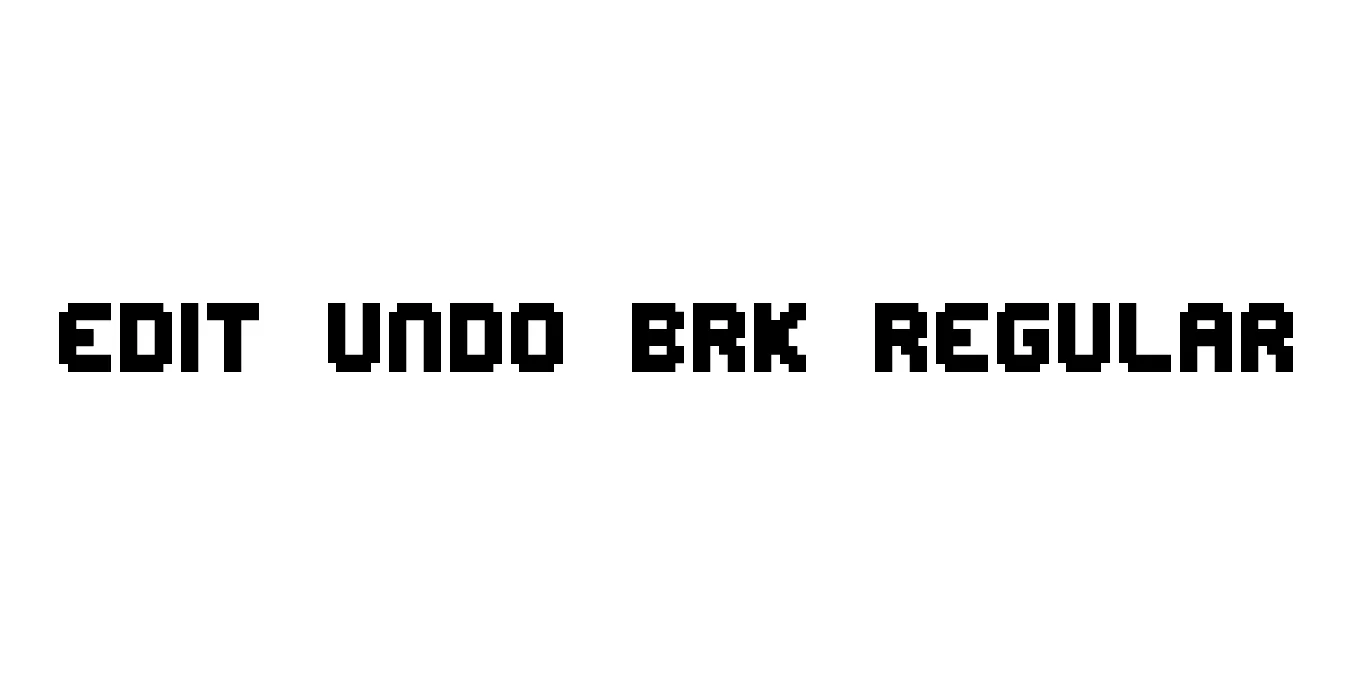
Edit Undo BRK Regular
Designed by Brian Kent (Ænigma Fonts)
| Category | Pixel / Bitmap |
| Designer | Brian Kent (Ænigma Fonts) |
Edit Undo BRK Regular is a classic pixel-style typeface designed by Brian Kent, a prolific creator behind the Ænigma Fonts collection. This font captures the essence of early digital displays and retro computing, utilizing a grid-based structure that ensures clarity at small sizes while maintaining a distinct 8-bit aesthetic. Its minimalist design and blocky letterforms make it a staple for projects seeking a nostalgic yet technical feel.
First released in the late 1990s as part of the massive BRK library, Edit Undo has remained popular among indie game developers and graphic designers. Its versatility allows it to function well in glitch-themed art, futuristic user interfaces, and lo-fi digital branding. The typeface remains a quintessential example of the bitmap font movement, representing a period where digital constraints inspired creative typographic solutions.
Edit Undo BRK Regular Best Uses
Perfect for UI and dialogue text in 8-bit or 16-bit inspired indie games.
Ideal for tech-focused blogs, coding portfolios, or headers requiring a digital look.
Great for poster art, especially within the vaporwave or glitch aesthetic movements.
Useful for status bars or small-scale displays in mobile applications.